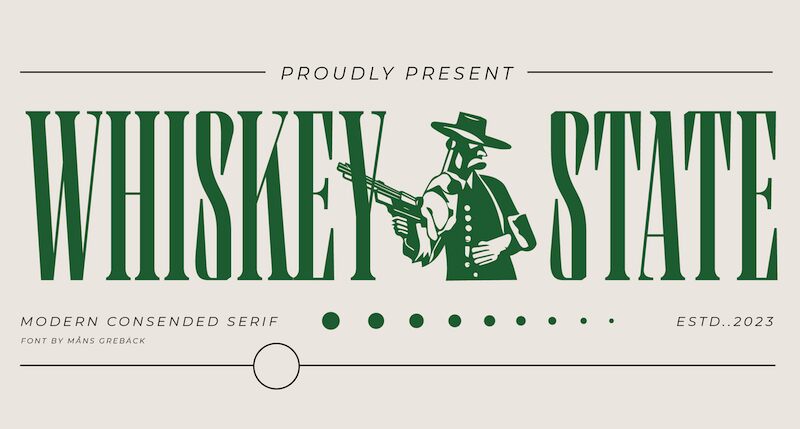
Whiskey State, designed by Mans Greback, is a display font that exudes the essence of the Wild West with a modern twist. Its semi-light weight and extra-condensed width make it perfect for creating bold, attention-grabbing designs. This font is ideal for projects that require a retro or western aesthetic, as it captures the rugged and adventurous spirit of the frontier.
Whether used in logos, posters, or packaging, Whiskey State adds a touch of nostalgia and authenticity to any creative endeavor. Its unique characteristics make it suitable for a wide range of design applications, allowing you to infuse your work with the rugged charm of the Old West while maintaining a contemporary edge.
Use characters { } < > [ ] to make symbols such as lions, eagles and revolvers.